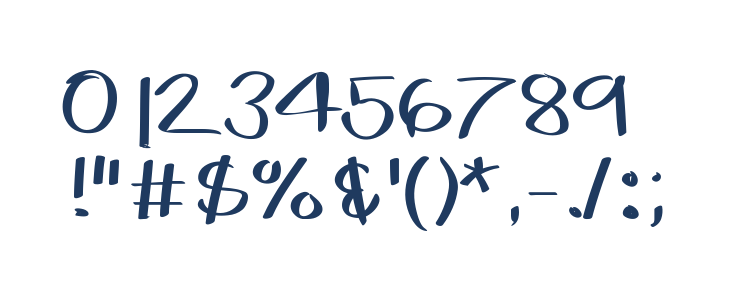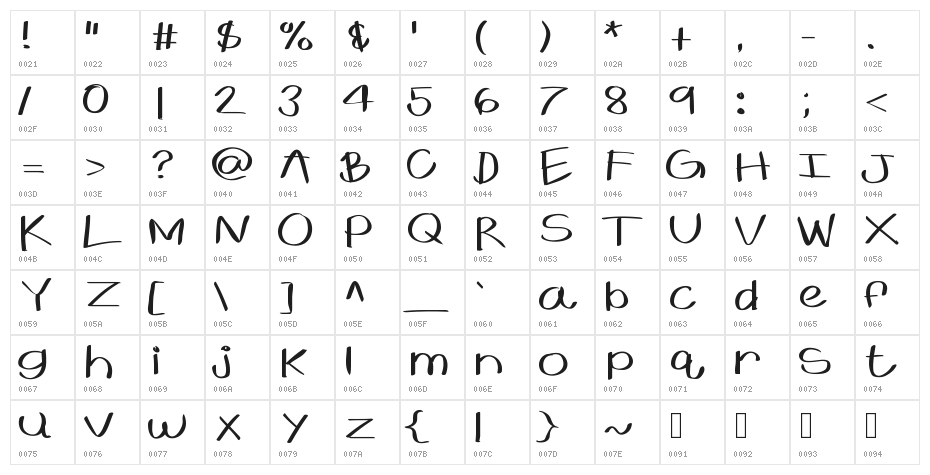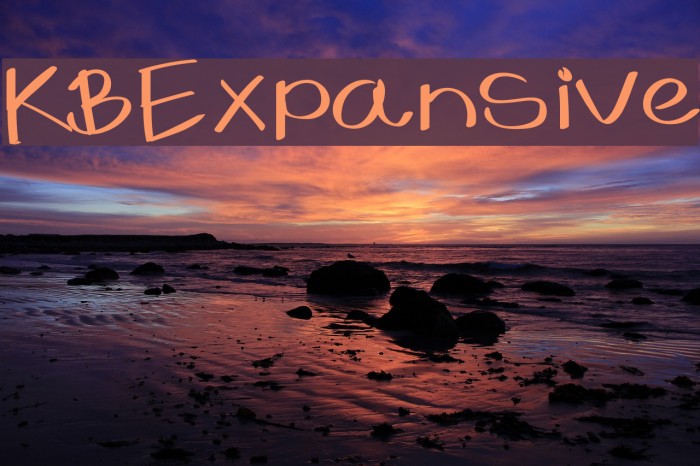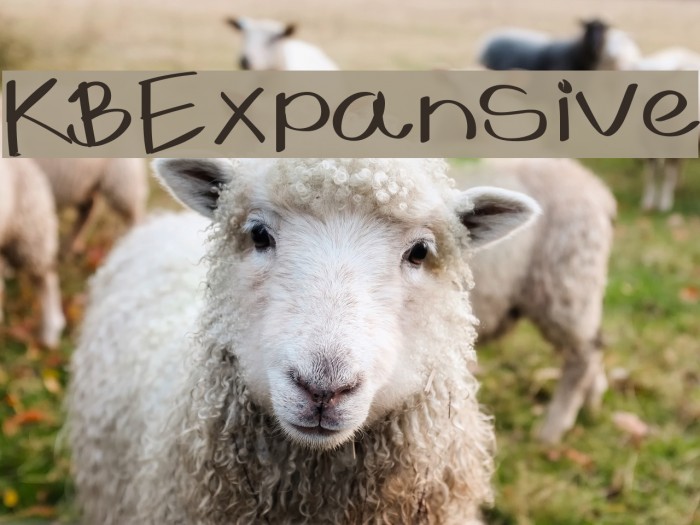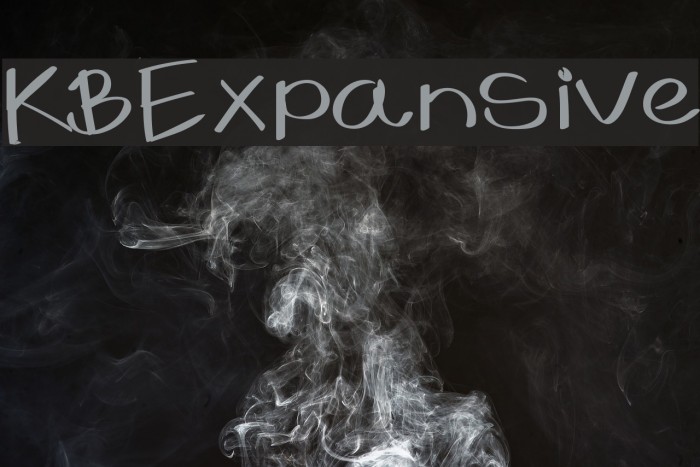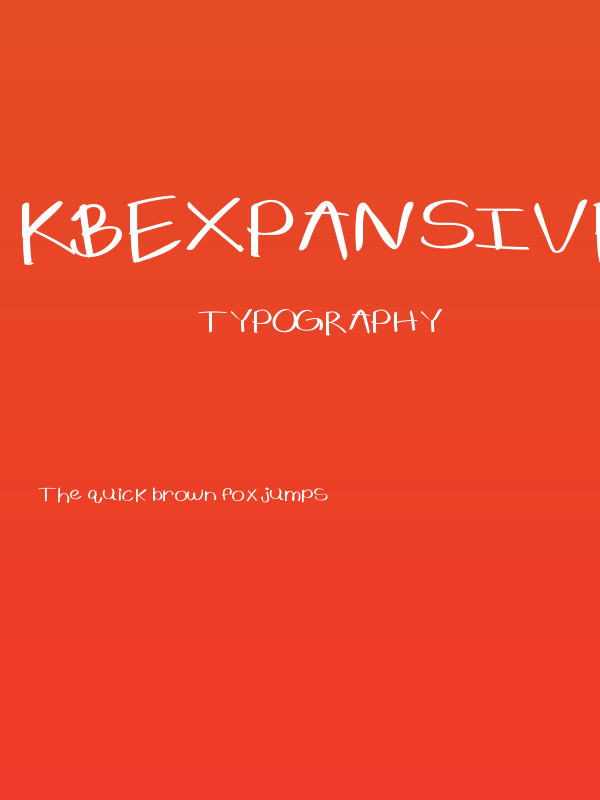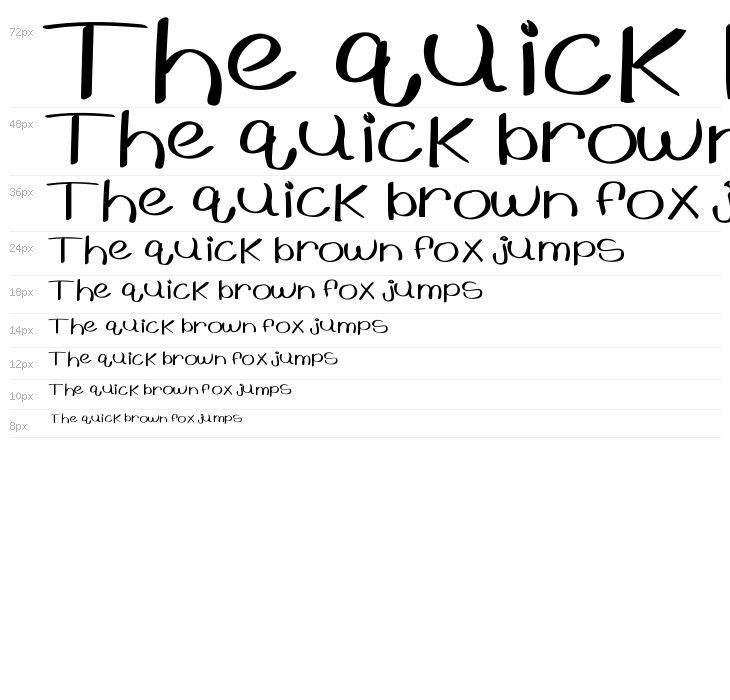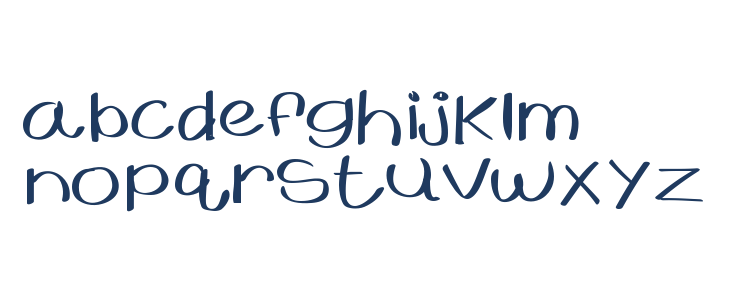
KBExpansive Font
KBExpansive Description
This font features a playful and informal handwritten style, characterized by its fluid and dynamic strokes. The uppercase letters are bold and slightly irregular, giving them a lively and energetic appearance. The lowercase letters maintain a consistent flow, with rounded edges that add to the font's approachable and friendly feel. Numbers and special characters are designed to match the overall whimsical aesthetic, ensuring a cohesive look across all text elements. The font's unique personality makes it suitable for projects that require a touch of creativity and fun.
| Overall Style | Playful |
| Proposed Projects | Ideal for children's books, creative posters, casual invitations, and playful branding. |